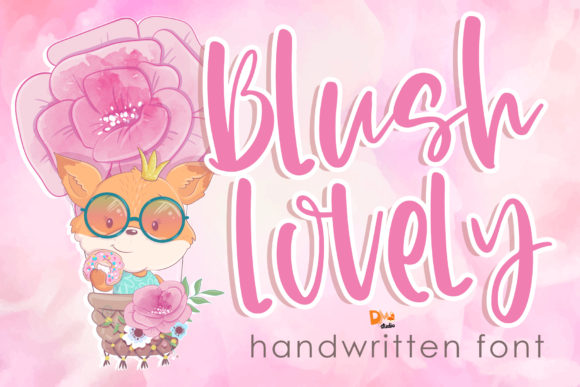
The Blush Lovely Font: Elevating Your Designs with Elegance
I’ll never forget the time I was working on a DIY project for a client’s wedding invitation. I had the perfect design concept, but I was struggling to find a font that exuded elegance and sophistication. That’s when I stumbled upon the Blush Lovely font, and it completely transformed my design. In this article, I’ll share my experience with this beautiful handwritten font, its features, and how to make the most of it in your creative projects.
An Honest Review of Blush Lovely
- ✨ The elegant, cursive script that adds a touch of sophistication to any design
- ✅ The font’s versatility, making it perfect for various creative projects, from Instagram posts to calligraphy scripts
- 💫 The beautiful swashes and ligatures that add a decorative touch to your text
- 🎨 The range of OpenType features, including stylistic alternates and glyphs, that allow for endless customization
While Blush Lovely is an outstanding font, there are a few minor quirks to be aware of:
- ⚠️ The font may not be suitable for very small text sizes, as some details may get lost
- 🤔 Some users may find the font a bit too ornate for certain design projects, such as minimalist branding
The Designer Inspiration Behind Blush Lovely
Blush Lovely was created with the goal of simplifying elegance into a single, outstanding handwritten font. The designer aimed to craft a font that would be perfect for creative projects, from Instagram posts to calligraphy scripts. With its beautiful swashes and ligatures, Blush Lovely is sure to elevate your designs and add a touch of sophistication.
Q: What is Blush Lovely font best used for?
A: Blush Lovely is perfect for creative projects that require an elegant, handwritten font, such as wedding invitations, DIY projects, and social media posts.
Q: Is Blush Lovely a script font?
A: Yes, Blush Lovely is a beautiful, cursive script font with a range of OpenType features.